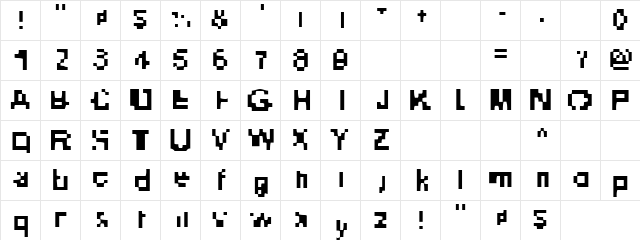
Compu Regular
Design Context for Compu Typeface
Compu is a composed and adaptable typeface that performs quietly and consistently across a wide range of design contexts.